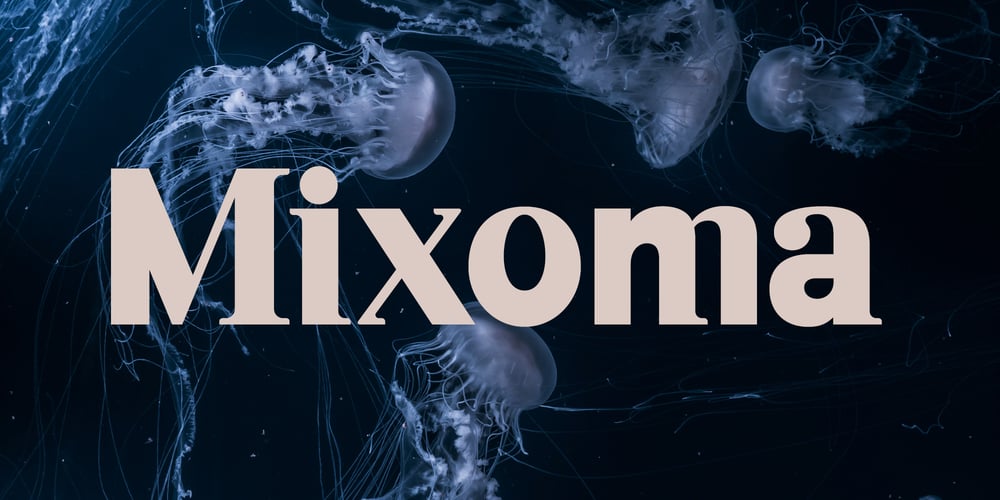
Mixoma
Mixoma font
Mixoma Font Family was designed by Paul Cracknell and published by Something and Nothing. Mixoma contains 18 styles and family package options. Introducing Mixoma: where the elegance of Serif meets the modernity of Sans. With its seamless blend of strokes, Mixoma exudes style like no other. Elevate your typography with our array of stylistic alternates, crafted to infuse your designs with unparalleled uniqueness. Unleash your inner Mixologist and watch your creativity flourish. Mixoma offers versatility with 9 weights ranging from Thin to Black, each accompanied by its italic counterpart. Dive into the world of Mixoma and elevate your design game today!